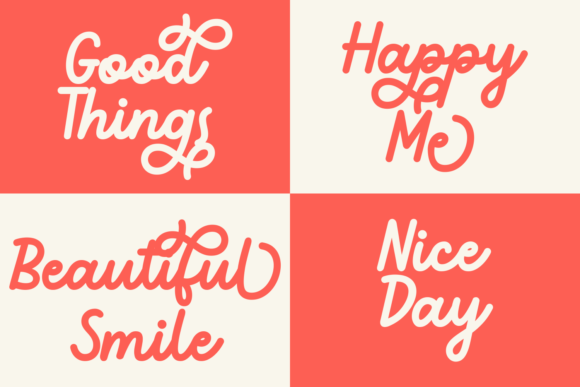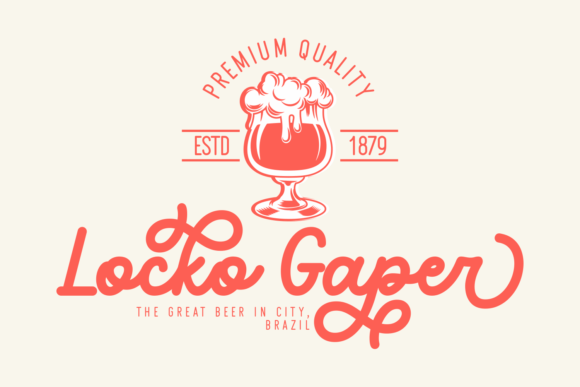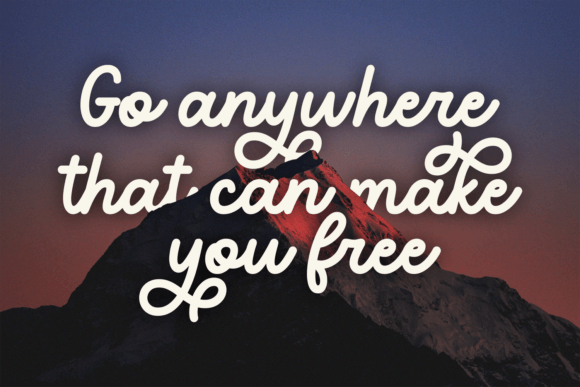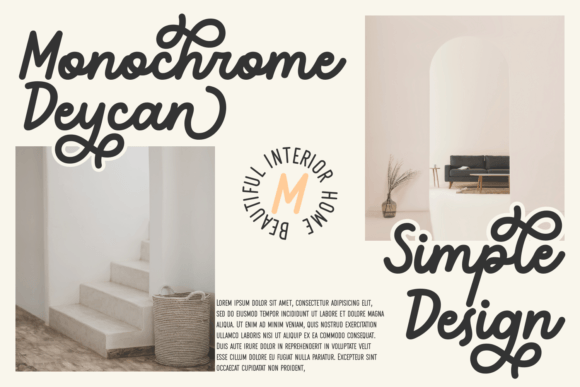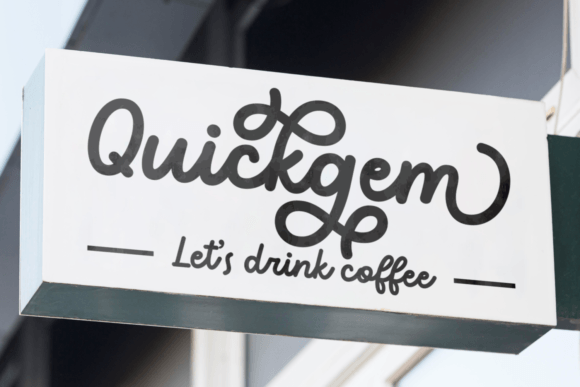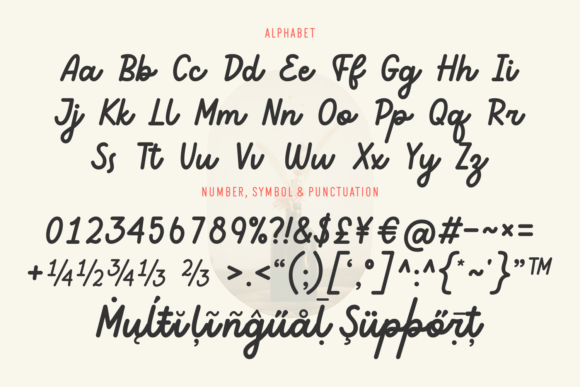
Athya Lovean Font: Elevate Your Designs with Elegance and Style
In the world of typography, a well-crafted font can make all the difference in elevating your design project from ordinary to extraordinary. If you’re on the hunt for a typeface that exudes elegance, sophistication, and a touch of modern flair, look no further than the Athya Lovean Font. This stunning bold monoline script font is poised to inspire your next creative endeavor, whether it’s a logo, banner, restaurant menu, card, or any other design project that requires a dash of style and panache.
The Essence of Athya Lovean Font
Athya Lovean is more than just a font; it’s an expression of modern elegance and refinement. Its bold monoline script design gives it a distinctive edge, making it perfect for designers and crafters looking to add a touch of sophistication to their work. The clean lines and fluid curves of Athya Lovean create a harmonious balance that is both visually appealing and highly legible, ensuring that your message is conveyed with clarity and impact.
One of the standout features of the Athya Lovean Font is its incredible versatility. Its elegant and stylish appearance makes it suitable for a wide range of design applications. Here are just a few examples of how you can use Athya Lovean to elevate your designs:
- Logos: Create a lasting impression with a bold and stylish logo that sets your brand apart.
- Banners: Grab attention and convey your message with elegance and clarity.
- Restaurant Menus: Add a touch of sophistication to your menu and enhance the dining experience.
- Cards: Whether it’s a greeting card, invitation, or business card, Athya Lovean adds a classy touch.
- And Many More: From packaging designs to website headers, the possibilities are endless with Athya Lovean.
Why Choose Athya Lovean Font?
With so many fonts available, why should Athya Lovean be your go-to choice? Here are a few compelling reasons:
- Elegance and Style: Athya Lovean brings a level of sophistication and elegance that can elevate any design.
- Versatility: Its wide range of applications makes it a valuable addition to any designer’s toolkit.
- Legibility: Despite its stylish appearance, Athya Lovean remains highly legible, ensuring your message is always clear.
Athya Lovean Font is a game-changer for designers and crafters looking to infuse their projects with elegance, style, and a modern edge. Its bold monoline script design, versatility, and PUA encoding make it an invaluable resource for a wide range of design applications. Whether you’re aiming to create a stunning logo, an eye-catching banner, or a sophisticated restaurant menu, Athya Lovean is the perfect choice. So why wait? Get inspired by the elegance and style of Athya Lovean Font and take your designs to the next level.